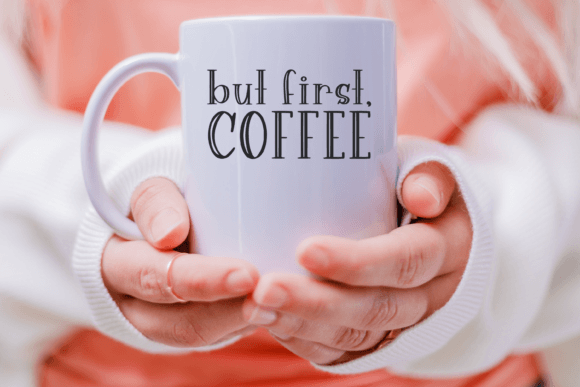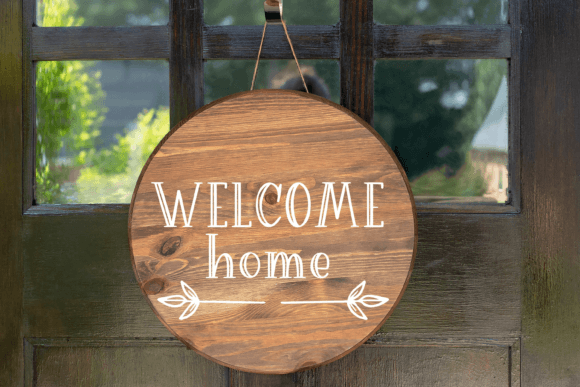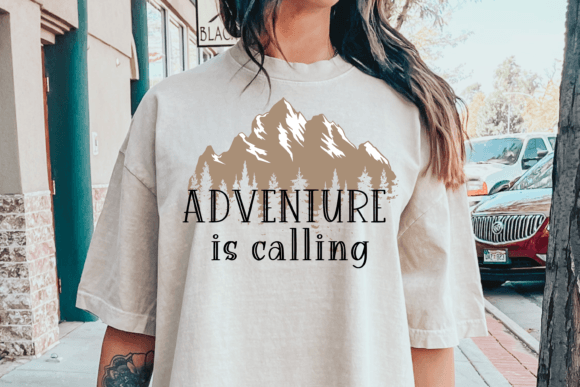
Introduction to Mulled Cider Font
Mulled Cider is a fun serif font.
Suitable for feature headings and decorative elements in academic brochures, alumni magazines, and other printed materials .
Why Choose Mulled Cider Font?
Mulled Cider Font offers exceptional quality and versatility, making it a valuable addition to your design toolkit. Whether you’re creating for personal projects or commercial use, Mulled Cider Font delivers professional results.